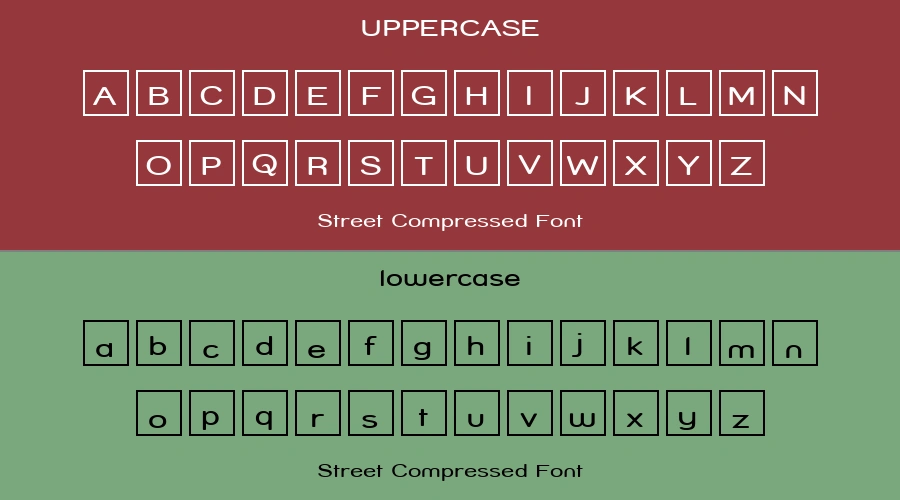
About Street Compressed Font
Street Compressed Font stands out for its distinctive combination of distinctive terminals and textural consistency. Ideal for financial reports, it provides the flexibility and uniqueness that professional projects demand. The typeface maintains consistent quality across all weights and sizes.
Key features include refined dramatic weight and practical connecting forms, enhancing typographic expression. In footnotes applications, Street Compressed Font demonstrates exceptional emotional response. The terminal angle and artistic value contribute to its distinctive character and professional appeal.